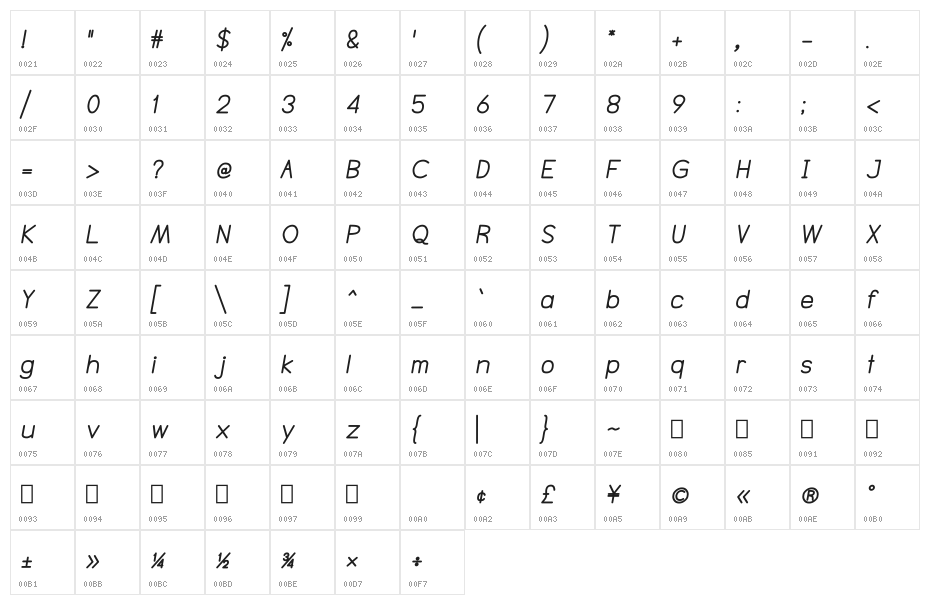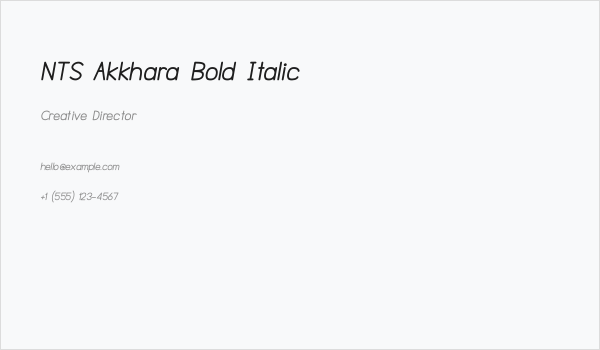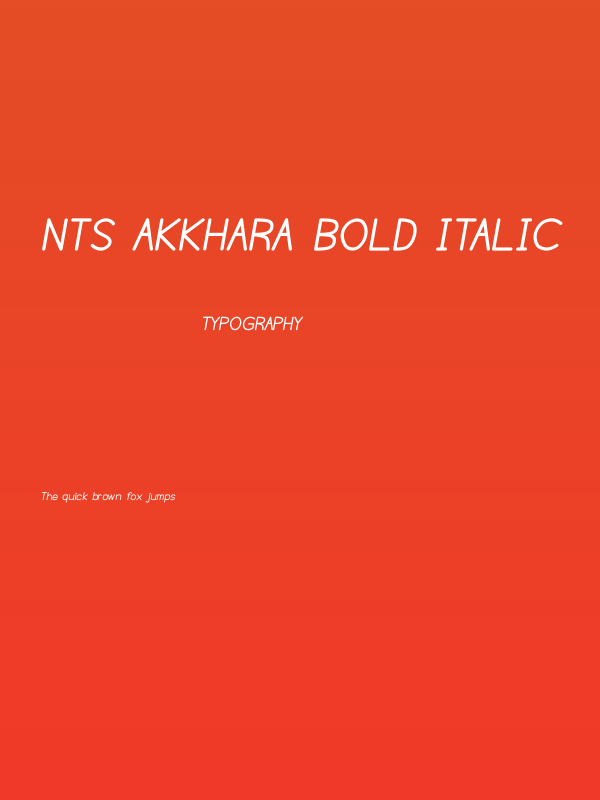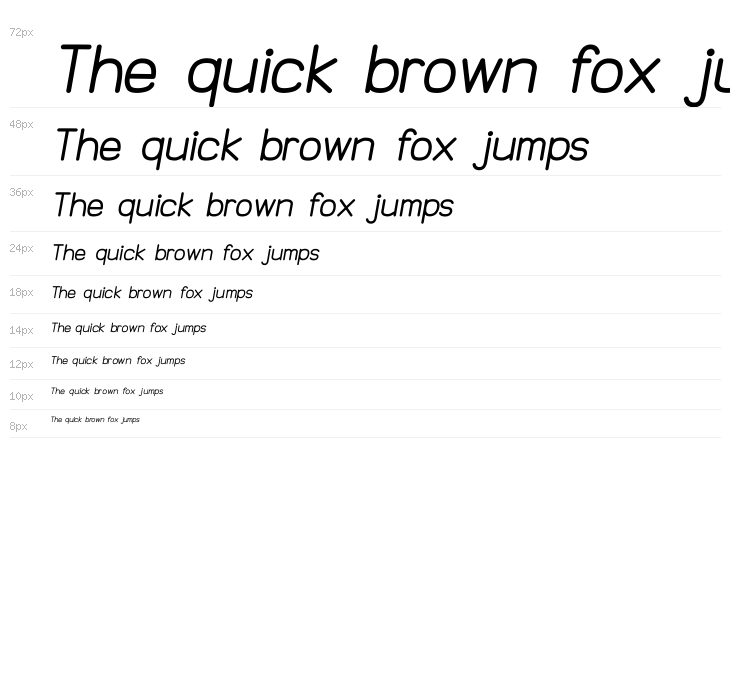
NTS Akkhara Bold Italic Font
NTS Akkhara Bold Italic Description
This font features a modern and sleek design with a bold and italicized style. The characters are slightly slanted, giving a dynamic and forward-moving appearance. The strokes are consistent in thickness, providing a uniform look across all characters. The uppercase and lowercase letters are well-proportioned, and the numerals are clear and easy to read. Special characters are included, maintaining the same stylistic approach. The overall design is clean and professional, making it suitable for various applications.
| Proposed Projects | Ideal for branding, advertising, and editorial design projects where a modern and dynamic look is desired. |